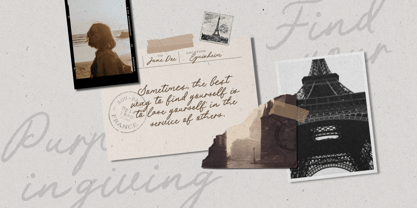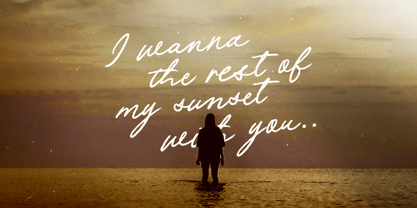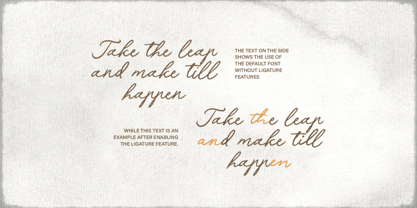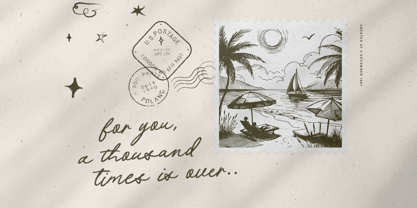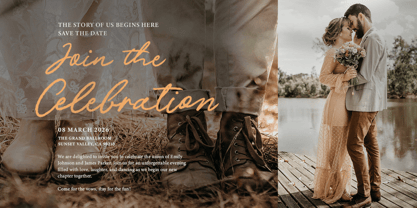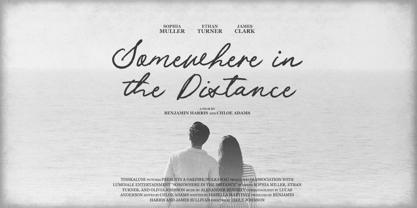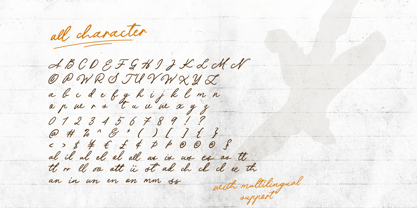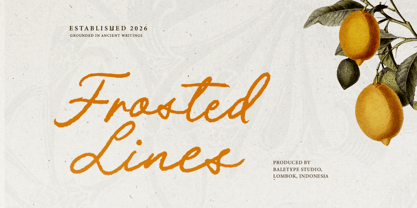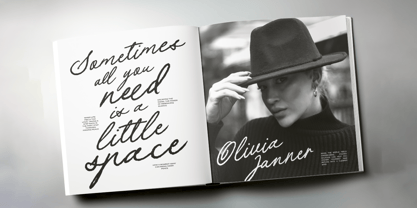
Frosted Lines
by Bale Type
The Frosted Lines Font Family was designed by Dzikrul Aulia and published by Bale Type. Frosted Lines contains 1 styles.
Frosted Lines is a bold handwritten script with rough and natural handwritten looks. You can use this font for many occasions such as wedding invitations, movie title, poster, quotes and branding. Especially for the designs that needs organic and handmade vibes. This font also includes many ligatures that will make the text looks more naturally handwritten. Frosted Lines also support multi language.